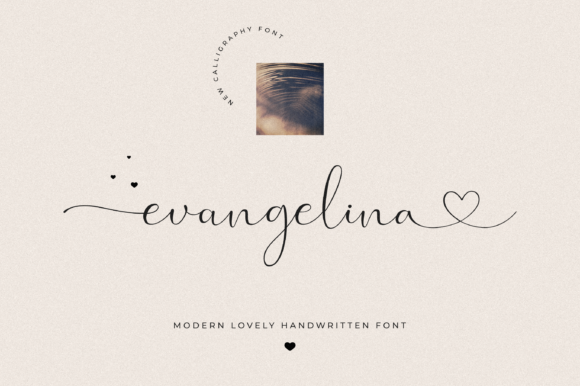
Introducing Evangelina Font: A Delicate and Romantic Script Font
Are you looking for a font that can add a touch of luxury and sophistication to your design projects? Look no further than Evangelina Font, a beautiful and elegant script font that is sure to impress. In this article, we’ll take a closer look at the features and benefits of Evangelina Font, and explore how it can be used to elevate your designs.
What is Evangelina Font?
Evangelina Font is a delicate, romantic, and thin script font that is designed to add a touch of luxury and elegance to any design project. With its flowing lines and intricate details, this font is perfect for creating beautiful and sophisticated designs that will leave a lasting impression.
Key Features of Evangelina Font
- Delicate and Romantic: Evangelina Font features a delicate and romantic design that is perfect for creating beautiful and sophisticated designs.
- Thin Script Font: This font is a thin script font that is designed to add a touch of elegance and sophistication to your designs.
- Luxury Spark: This font is designed to add a luxury spark to any design project, making it perfect for creating high-end designs.
Benefits of Using Evangelina Font
There are many benefits to using Evangelina Font in your design projects. Here are just a few:
Why Choose Evangelina Font?
- Adds a Touch of Luxury: Evangelina Font is designed to add a touch of luxury and sophistication to your designs, making it perfect for creating high-end designs.
- Versatile: This font is versatile and can be used in a variety of design projects, from branding and packaging to wedding invitations and more.
- Unique and Creative: This font is unique and creative, making it perfect for designers who want to stand out from the crowd.
How to Use Evangelina Font
Using Evangelina Font is easy and straightforward. Here are a few tips for getting started:
Tips for Using Evangelina Font
- Choose the Right Size: Evangelina Font is a delicate font, so it’s best to use it at larger sizes to ensure that the details are visible.
- Pair with Other Fonts: This font pairs well with other fonts, so feel free to experiment with different combinations to find the one that works best for your design.
- Experiment with Colors: Evangelina Font looks great in a variety of colors, so don’t be afraid to experiment and find the one that works best for your design.
Design Projects that Evangelina Font is Perfect For
Evangelina Font is a versatile font that can be used in a variety of design projects. Here are a few examples:
Perfect for:
- Branding and Packaging: Evangelina Font is perfect for creating luxury brands and packaging designs that require a touch of elegance and sophistication.
- Wedding Invitations: This font is perfect for creating beautiful and elegant wedding invitations that will set the tone for the big day.
- Signage and Displays: Evangelina Font can be used to create beautiful and eye-catching signage and displays that will grab attention.
- Digital Designs: This font can be used in digital designs, such as social media graphics, website headers, and more.
In conclusion, Evangelina Font is a beautiful and elegant script font that is perfect for adding a touch of luxury and sophistication to your design projects. With its delicate and romantic design, PUA encoding, and versatility, this font is sure to become a favorite among designers. Whether you’re creating branding and packaging designs, wedding invitations, or digital designs, Evangelina Font is a great choice.